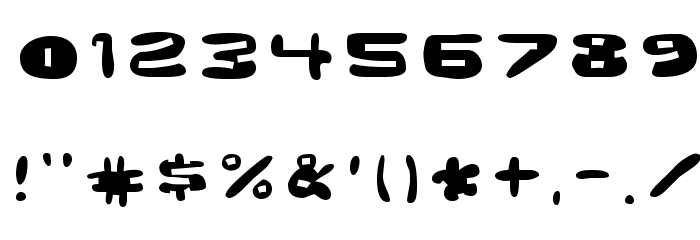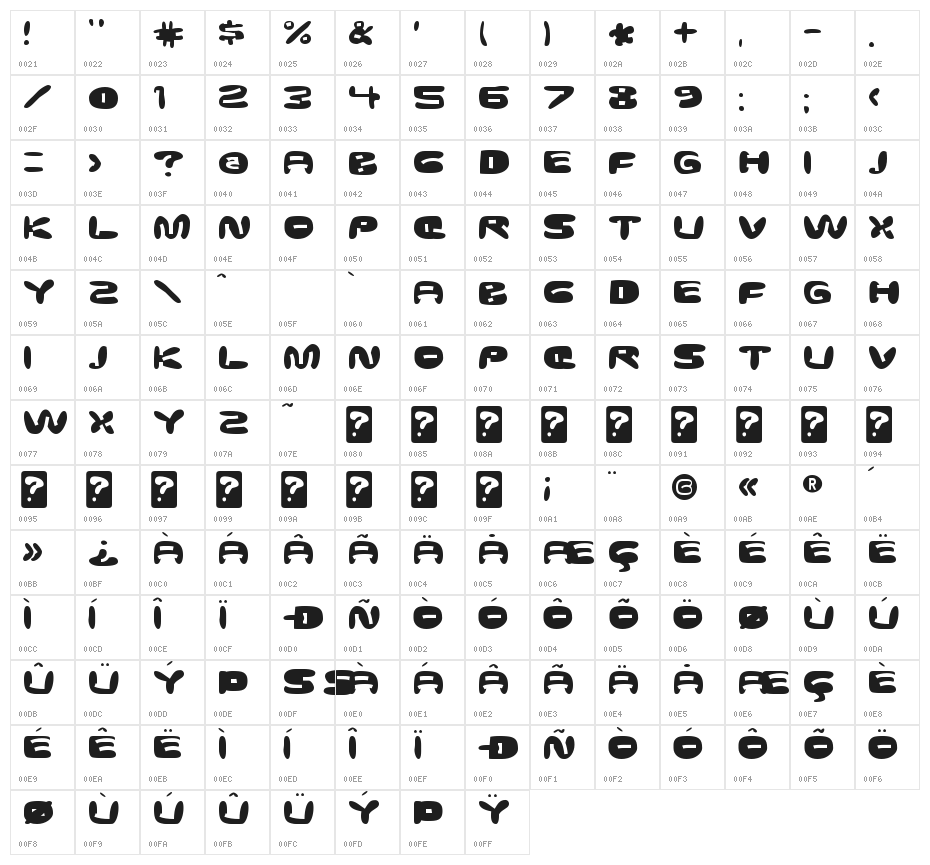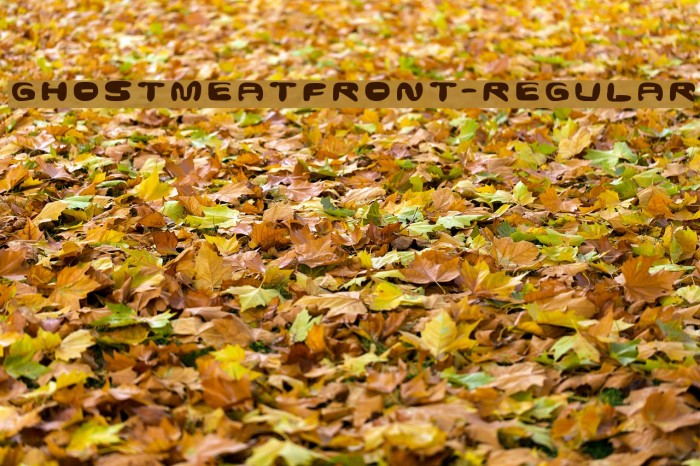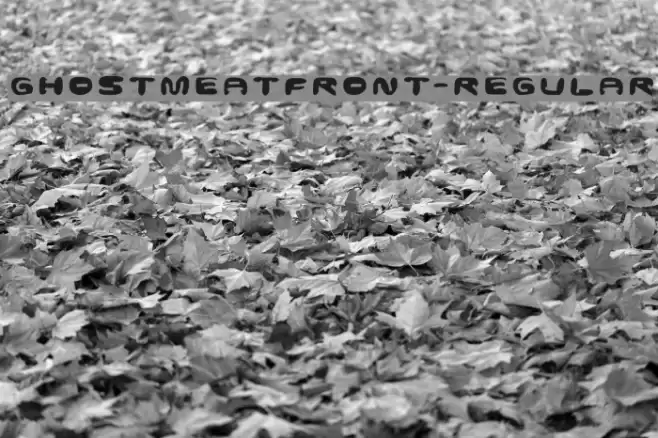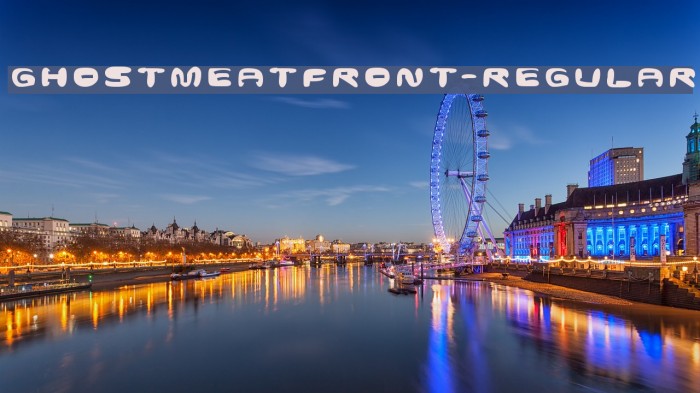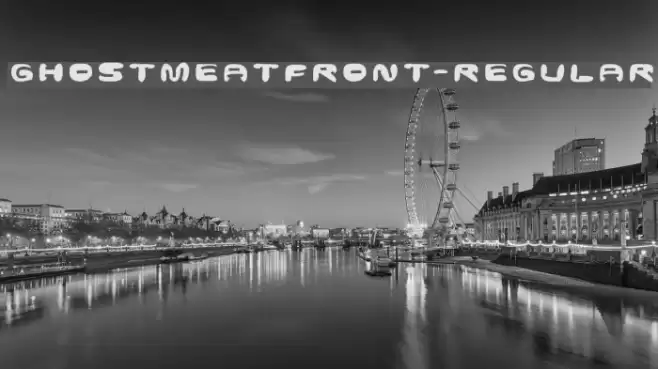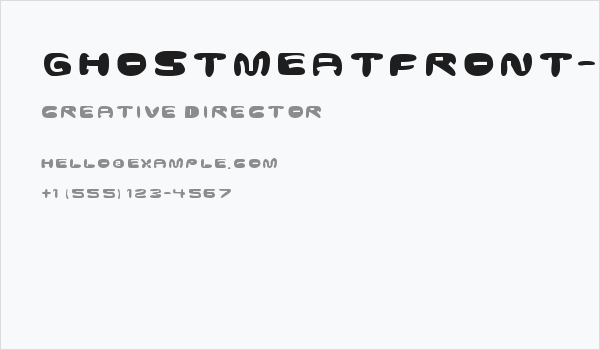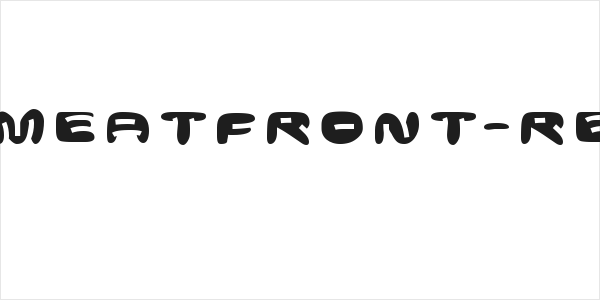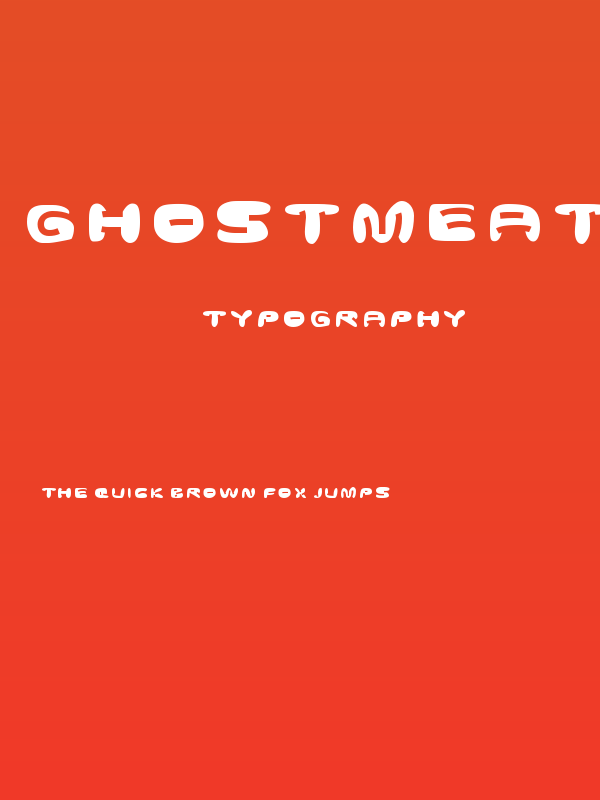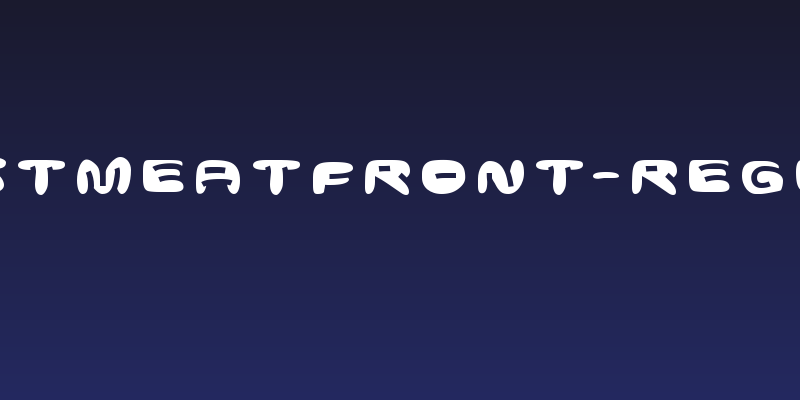
GhostmeatFront-Regular Font
GhostmeatFront-Regular Description
This font features a playful and bold design with rounded edges and a slightly irregular form, giving it a whimsical and unique appearance. The characters are thick and substantial, creating a strong visual impact. The rounded and soft edges contribute to a friendly and approachable feel, while the irregularities add a touch of creativity and spontaneity. This font is well-suited for projects that require a fun and engaging aesthetic, such as children's books, playful branding, or creative posters. The numbers and special characters maintain the same playful style, ensuring consistency across different uses.
| Proposed Projects | Ideal for children's books, playful branding, creative posters, and fun event invitations. |